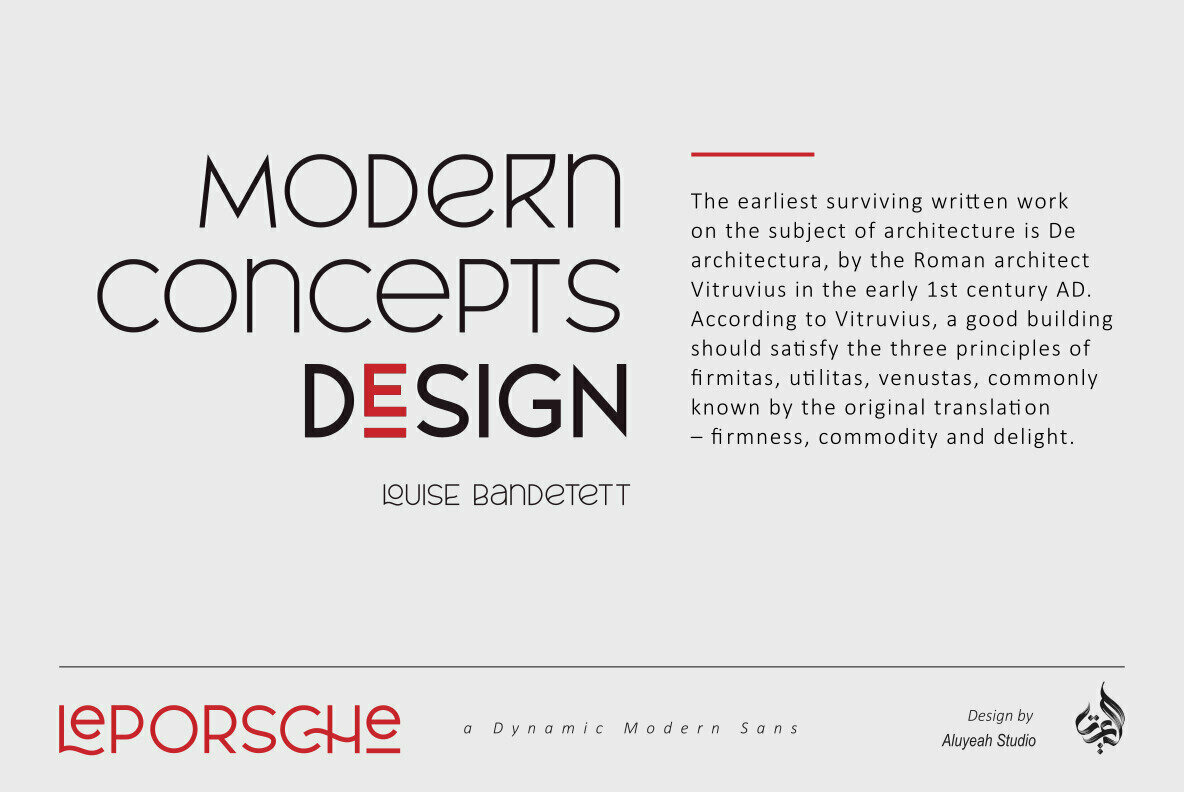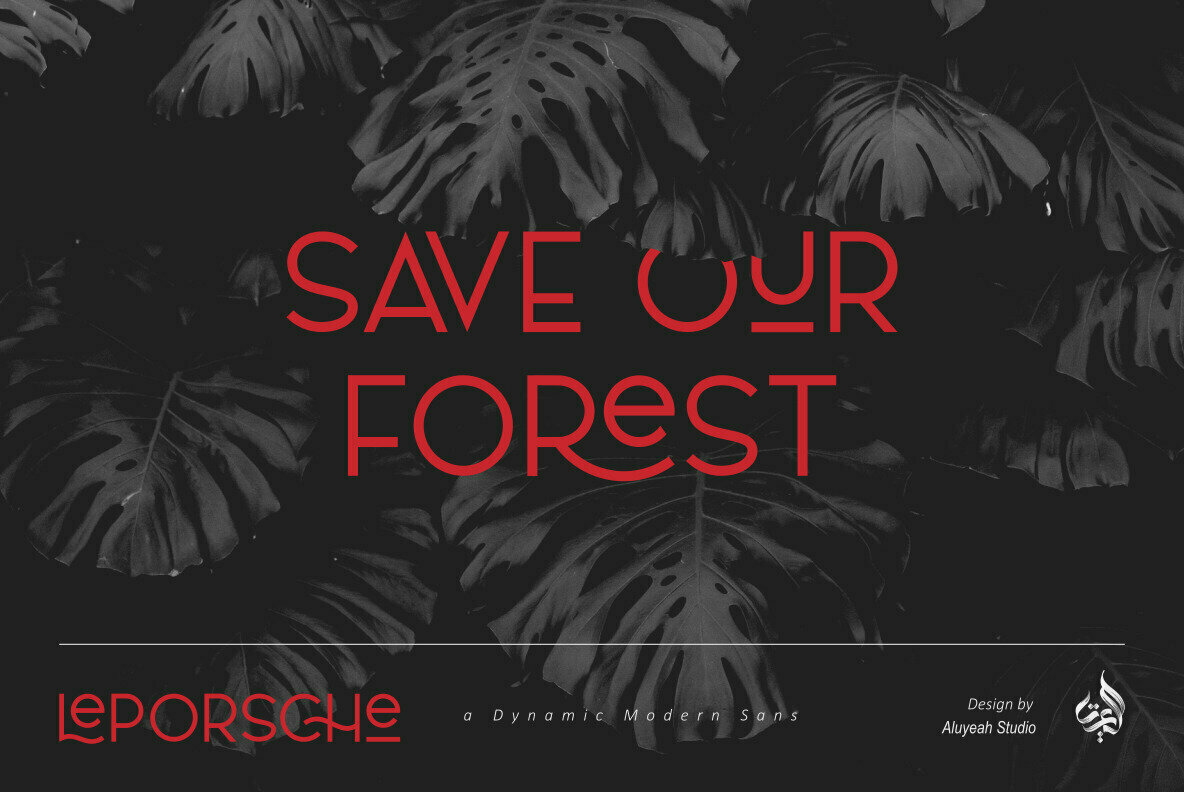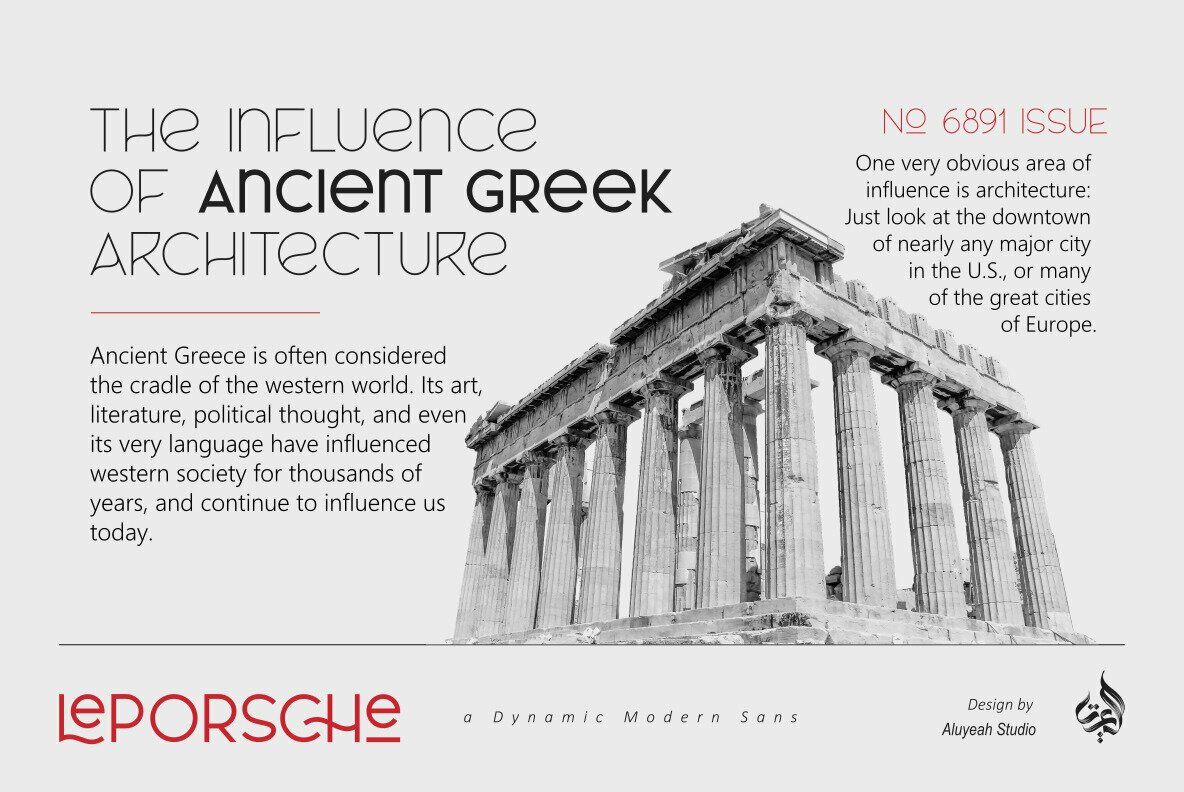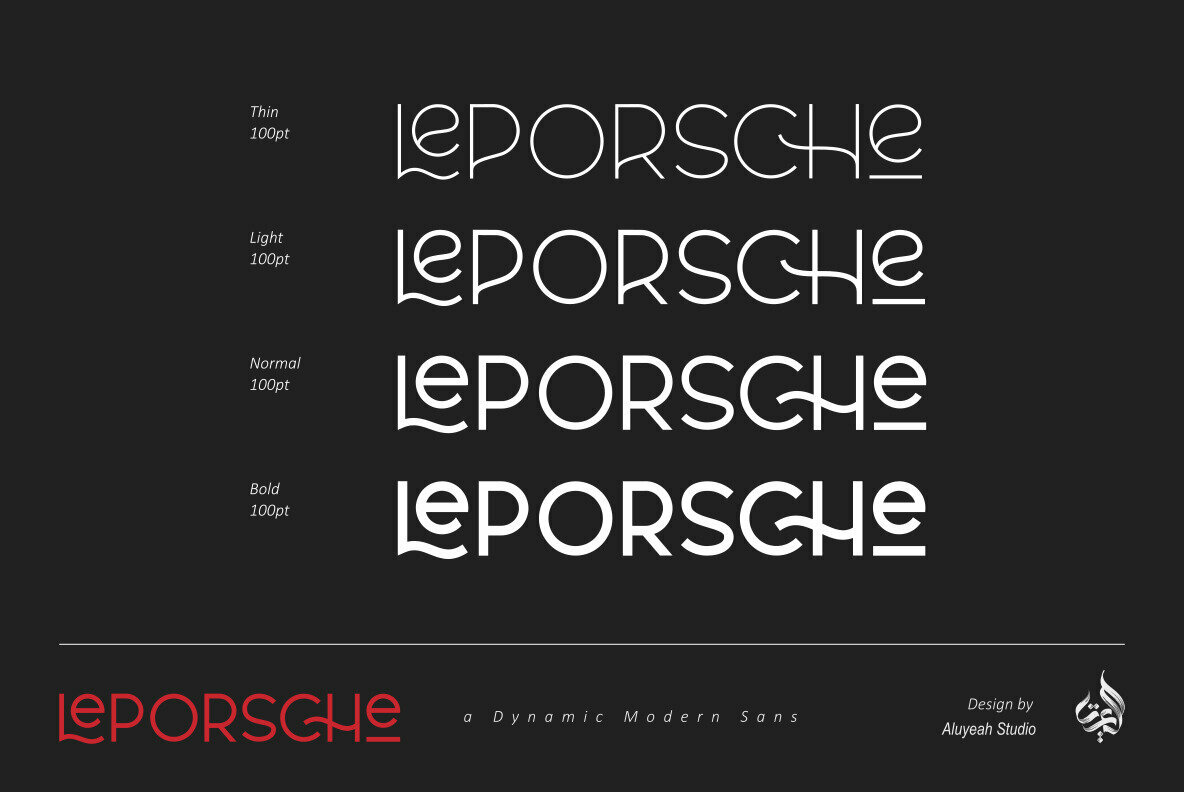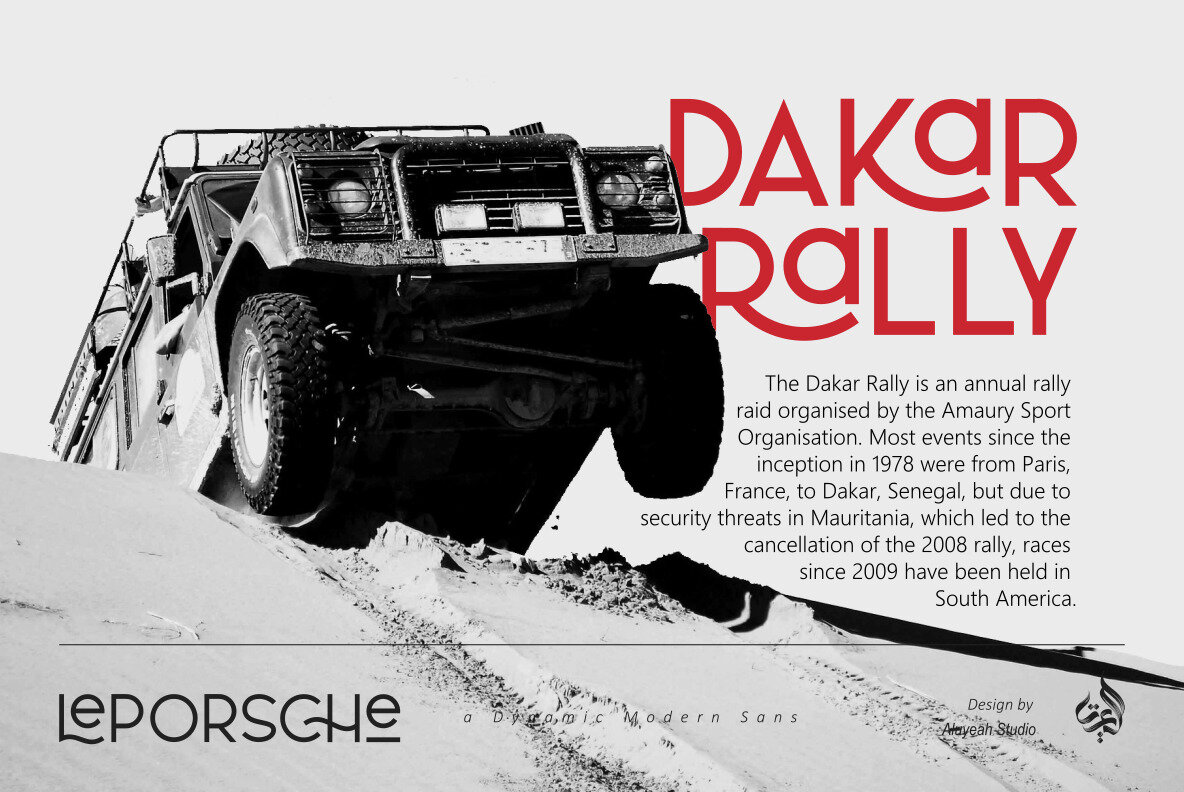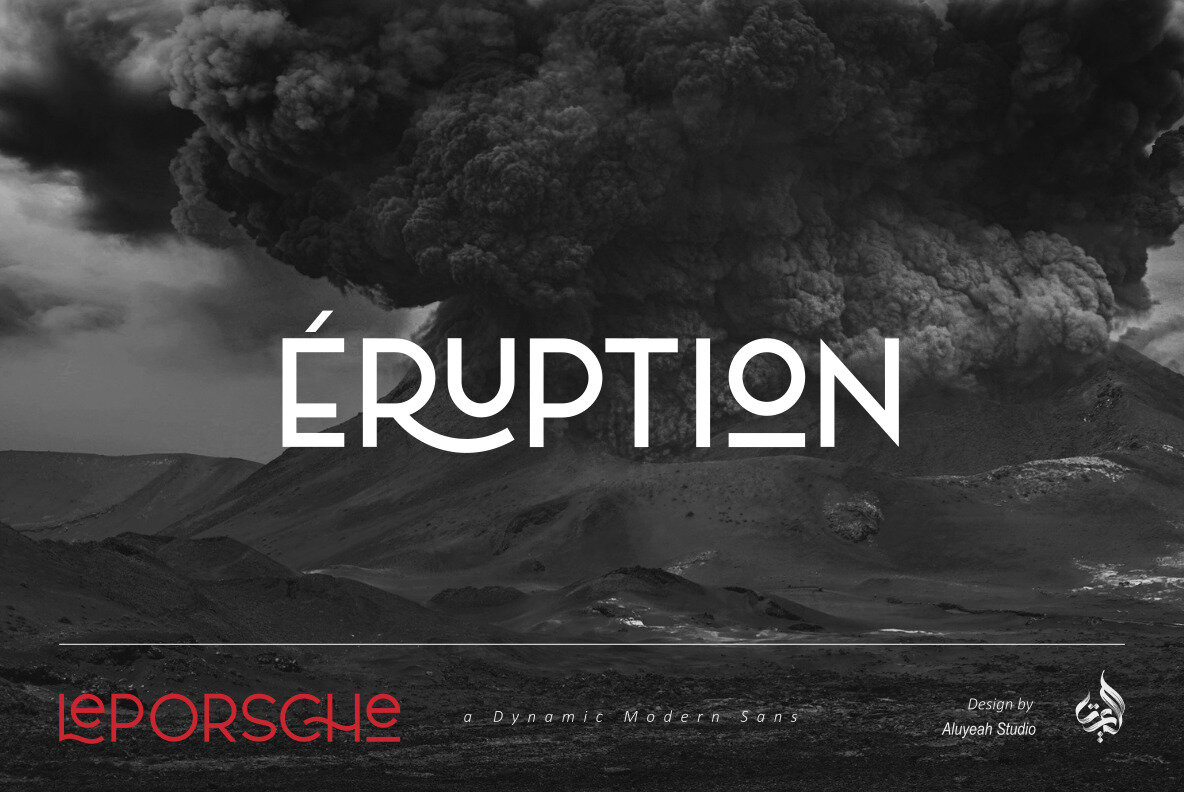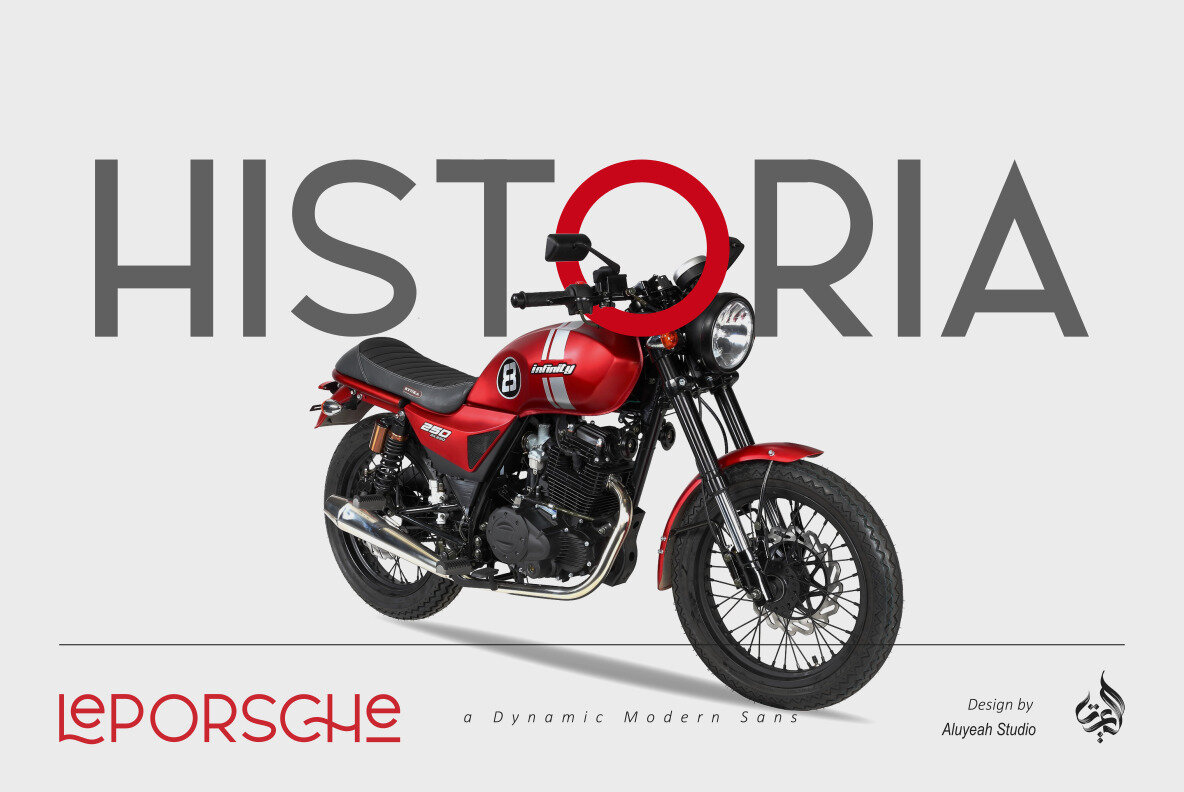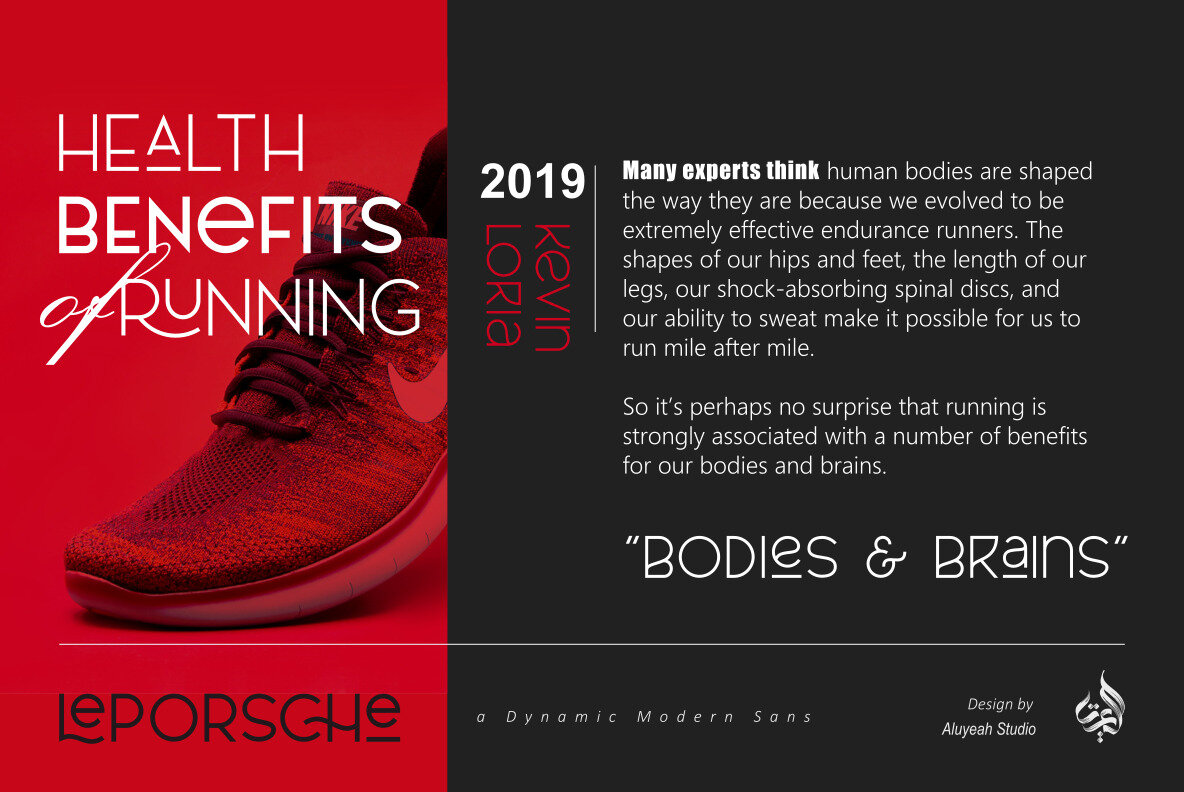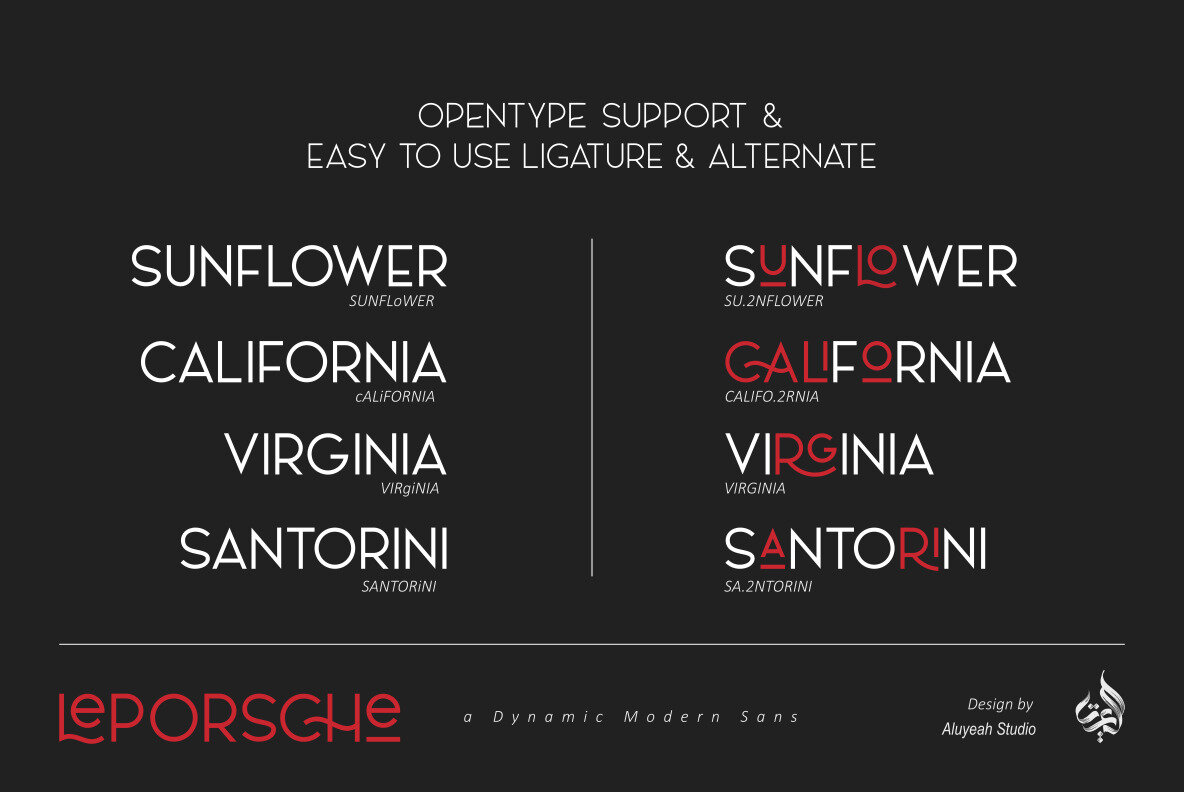
LePorsche Font
LePorsche is a dynamic modern sans serif. Strong, with curve elegant touch. It is a rounded, geometric near-monoline construction sans serif typeface with display details. Give it modern, simple, elegant, chic, cool, and strong vibes. Each font looks amazing in large headlines.
OpenType support
Beautiful Ligature
Super Easy to Use alternates – It’s OpenType support but you can easily call alternates character using special combination like A.2 E.2 E.3 etc. so you don't need special software. To get results like the preview just type LEPoRSCHe.2